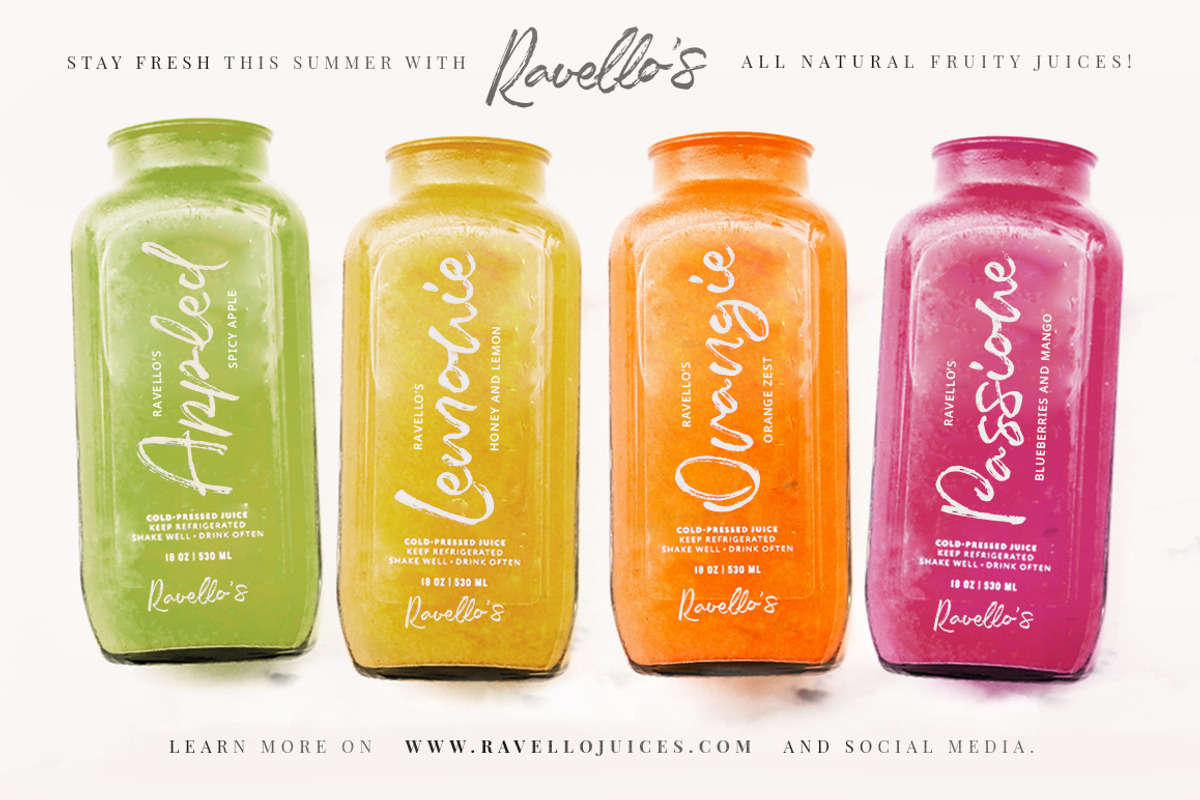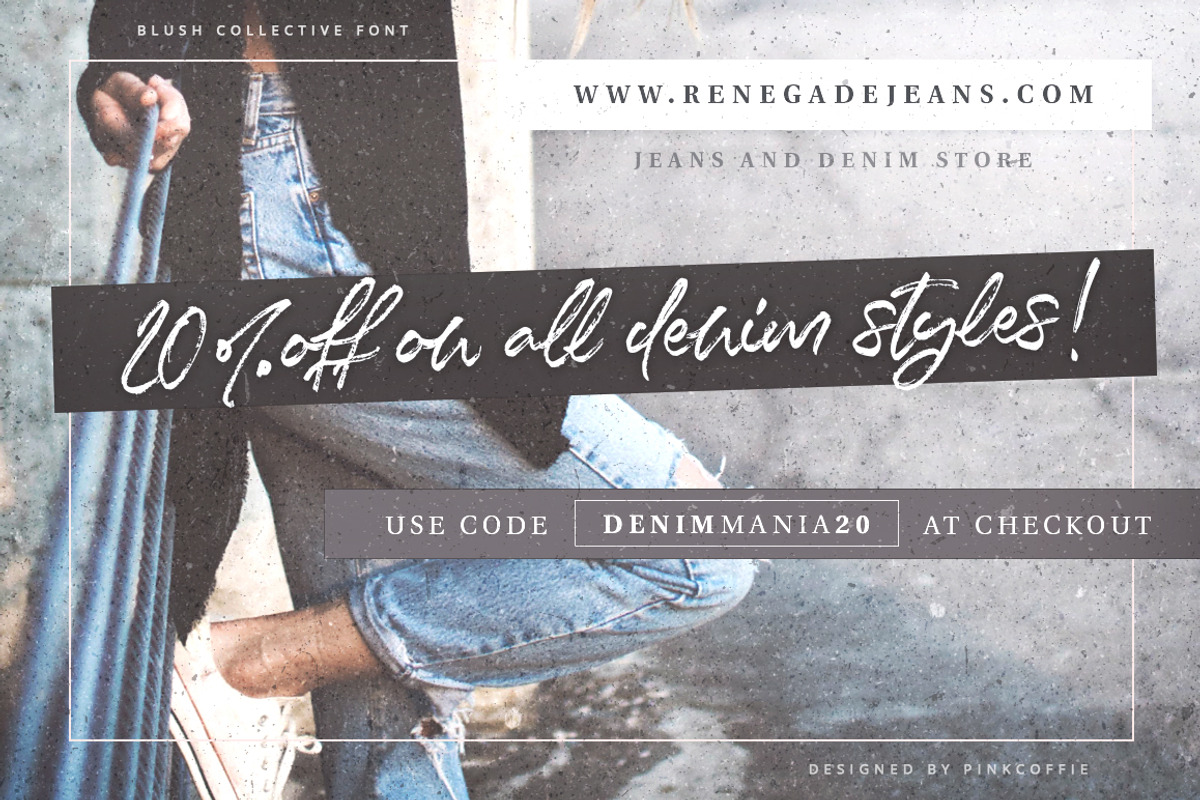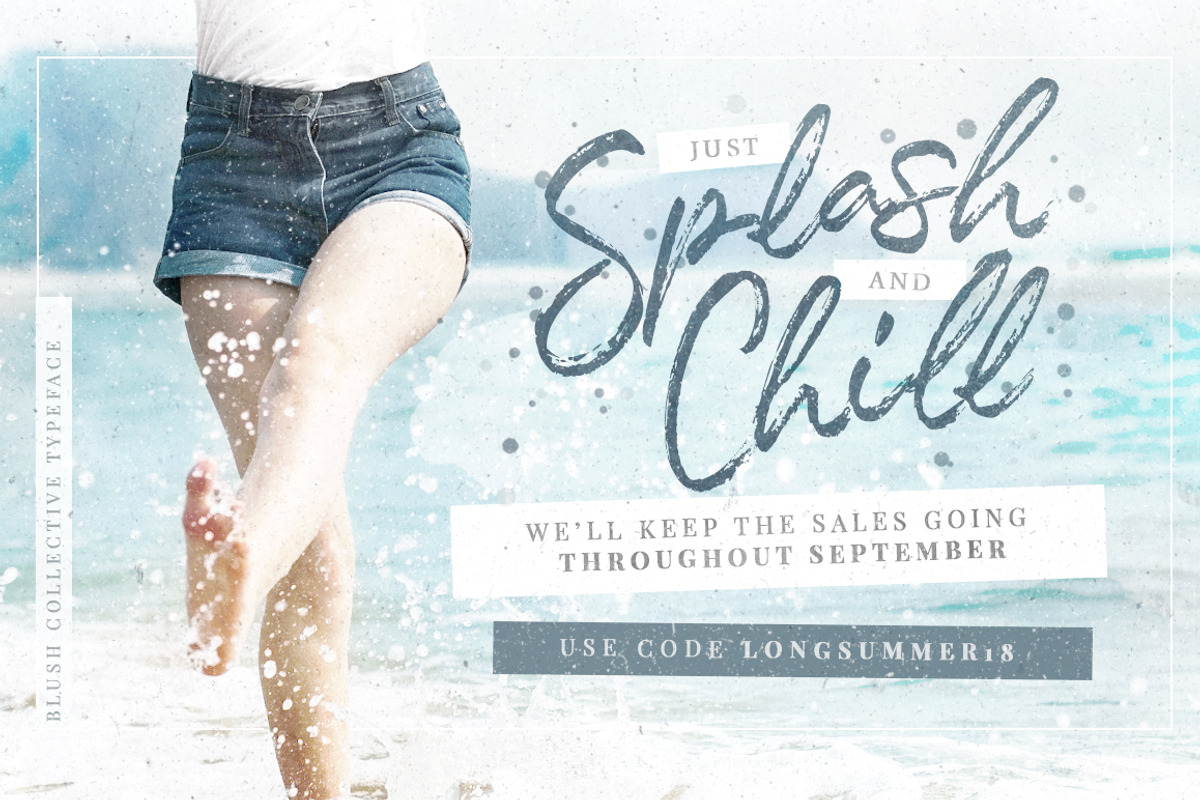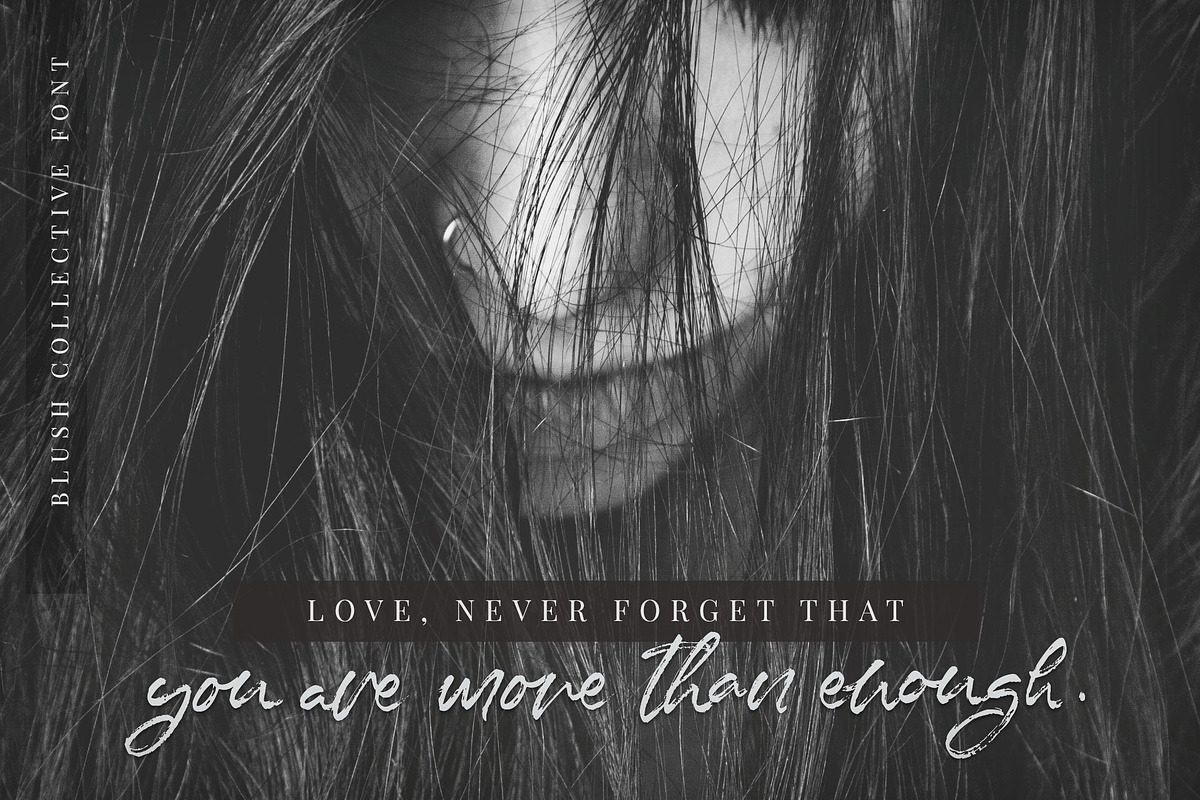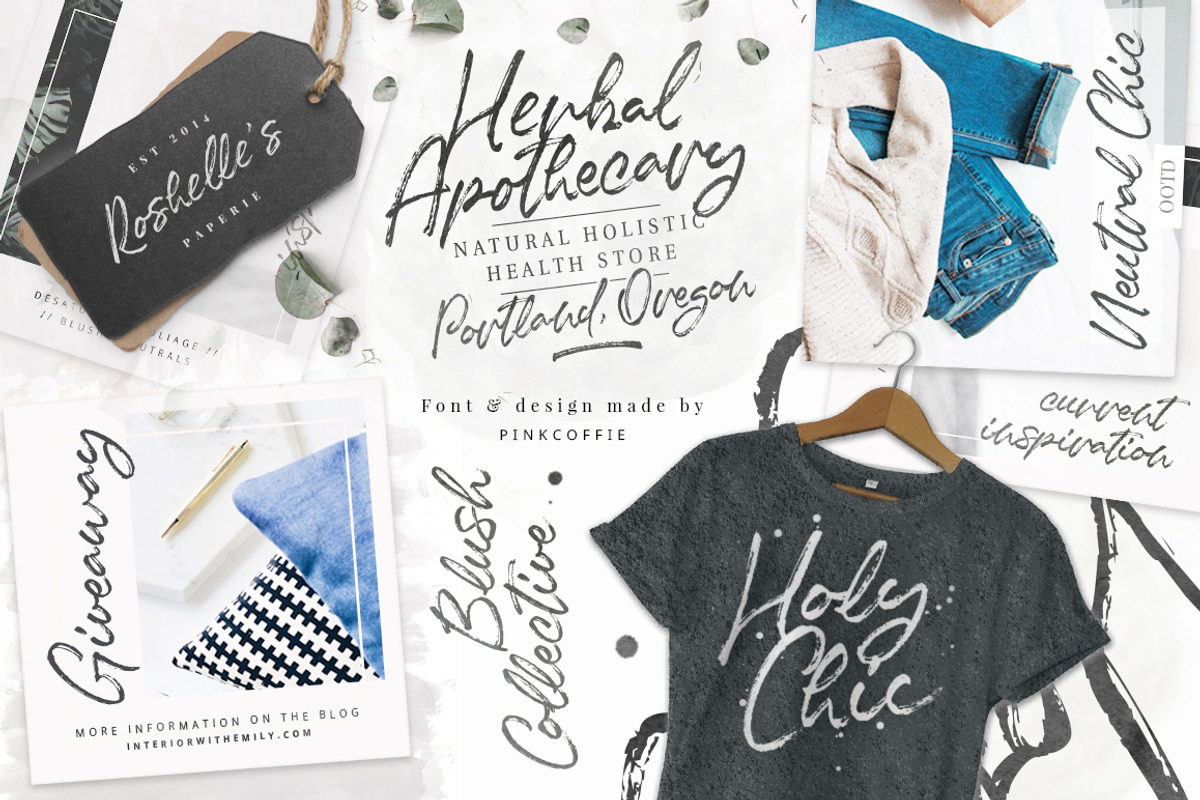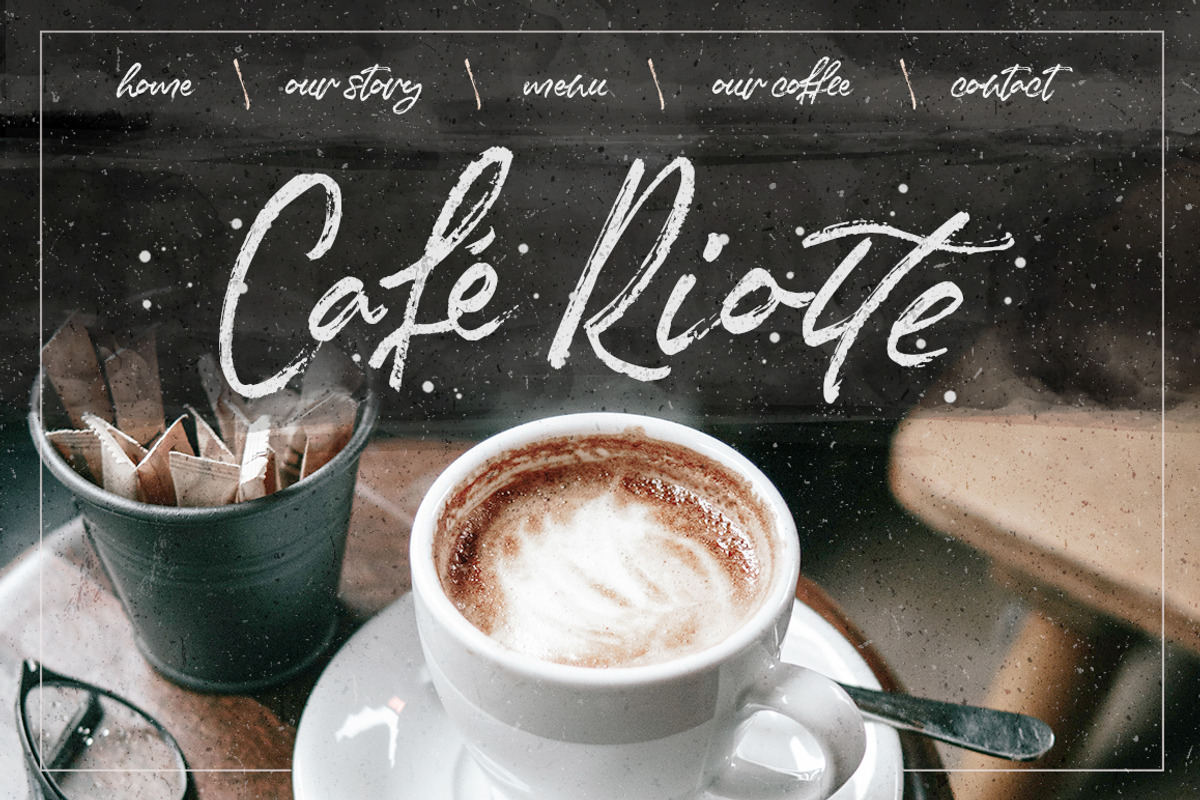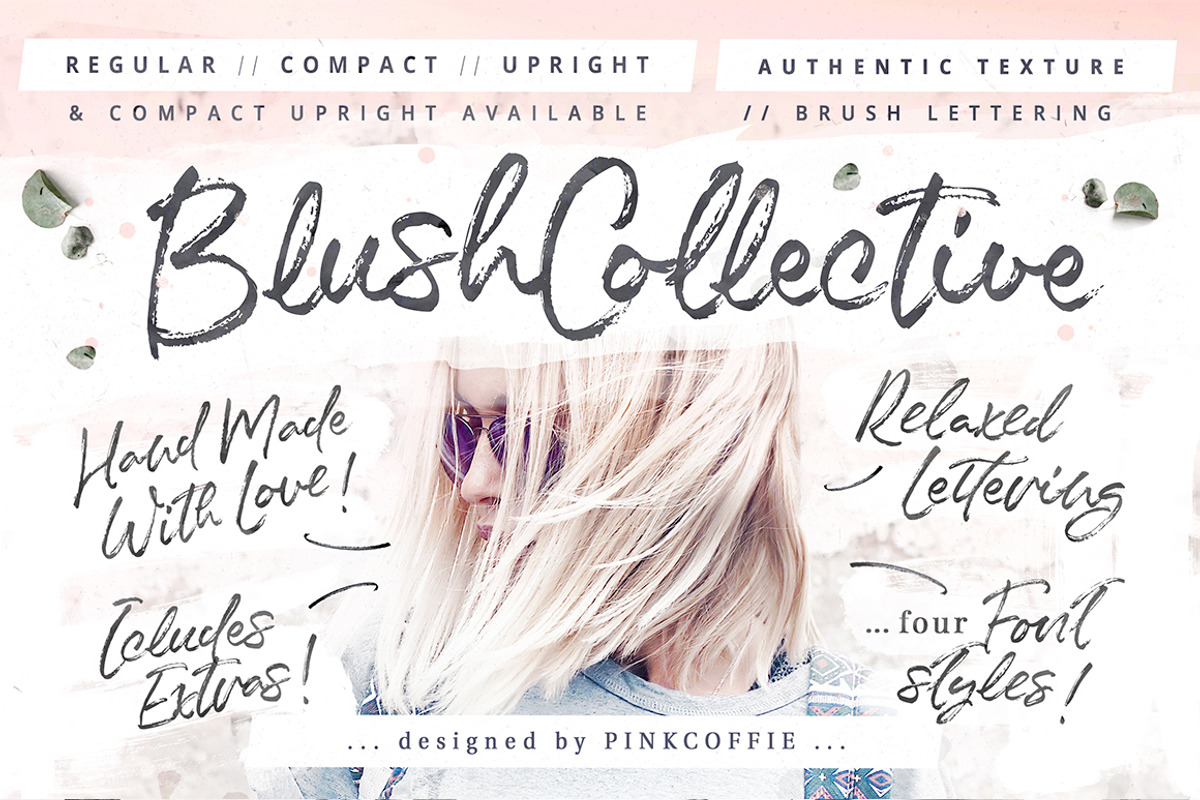
Blush Collective - 4 Fonts + Extras!
Say hello to Blush Collective, a fashionable & casual brush script font with loads of texture, details and character that miiiight just add that little something to your next project. :)
Blush Collective comes with a full set of lowercase stylistic alternates and double letter ligatures to assure that natural, handwritten look & flow as well as FOUR font versions in total - REGULAR, UPRIGHT, COMPACT and COMPACT UPRIGHT which allow you to create different looks, depending of your project - may it be a t-shirt design, blog header, logo, magazine spread, branding project, newsletter design, book or album cover or simply a social media announcement or graphic, Blush Collective is versatile enough to handle most. :)
... also as a sweet bonus, I’ve included some extra gold, rose gold and silver shimmery foils to play with and they come as both Photoshop layer styles and Illustrator raster swatches as well as seamless 300dpi textures. :)